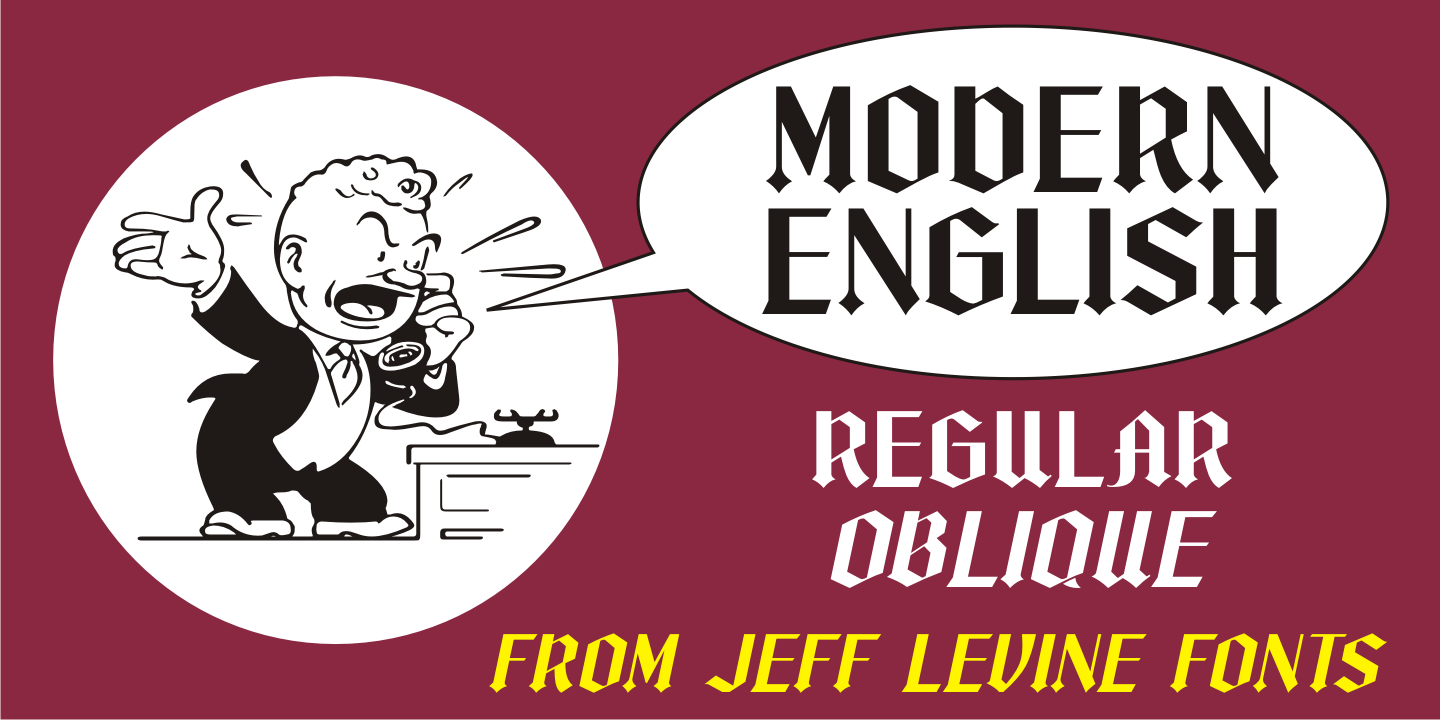
Modern English JNL Font is perfect for British heritage brand identities, traditional pub signage, English countryside tourism marketing, classic literature publishing, royal celebration materials, historical society communications, traditional tea shop branding, and distinguished educational institution signage.
Modern English JNL Font is exciting because it embodies the dignified elegance of contemporary British typography with its refined letterforms that honor centuries of English literary tradition while embracing modern design sensibilities. The typeface captures the essence of British sophistication and cultural heritage, creating an immediate sense of distinction and intellectual authority that resonates with audiences who appreciate refined English style and tradition.
Modern English JNL Font family includes Light, Regular, Medium, Bold, and Heavy weights, complemented by traditional British ornamental elements and classic typographic flourishes, offering designers authentic typography tools for creating communications that celebrate English heritage while meeting contemporary design standards.
Whether you're developing a British luxury brand identity, designing heritage tourism materials, or creating distinguished educational content, Modern English JNL Font Free Download provides unmatched cultural authenticity and sophisticated appeal. This exceptional typeface perfectly balances traditional English typographic principles with modern functionality, ensuring your communications resonate with audiences who value cultural heritage, intellectual depth, and the timeless elegance of British design traditions. The font's classical proportions and dignified character make it particularly effective for brands that emphasize quality, tradition, and the kind of understated excellence that defines British cultural institutions. Heritage organizations and luxury brands consistently choose Modern English JNL Font when projects require typography that communicates refinement, tradition, and the kind of enduring quality that has made British culture influential worldwide, making it essential for heritage branding, educational publishing, and any application where distinguished typography can honor the magnificent legacy of English literature, design, and the cultural contributions that continue to shape global standards of excellence and sophisticated communication.